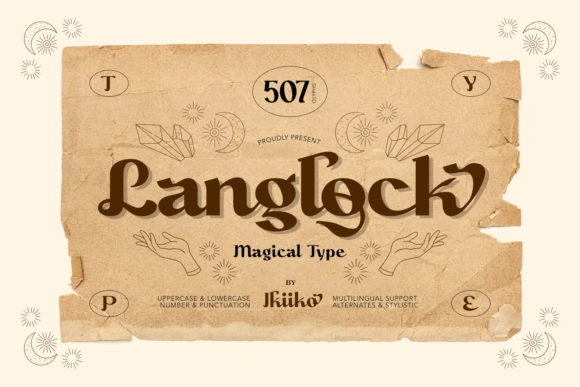
Journey into a realm of enchantment with Langlock Font, a serif typeface that captures the mystical allure of classic fairy tales. Inspired by the era of wizards and magic, this font is a captivating choice for those seeking a touch of vintage charm.
Immerse yourself in the pages of a timeless storybook as you explore the intricate details of Langlock Font. Its elegant curves and delicate flourishes evoke a sense of nostalgia, transporting you to a world of wonder and imagination. Unleash your creativity and craft designs that exude a classic elegance, reminiscent of beloved fairy tales.
With Langlock Font, you hold the key to unlocking a world of creative possibilities. Embark on a magical adventure as you design enchanting book layouts, weave spellbinding fairy tales, and create captivating marketing materials. This font is a versatile tool that adds a touch of magic to any project.
Lose yourself in the enchanting world of Langlock Font, where inspiration flows like a river. Whether you're crafting a vintage-inspired poster, designing a captivating flyer, or simply adding a touch of whimsy to your social media posts, this font is the perfect companion.
Take your designs to new heights with Langlock Font, the font that sparks imagination and ignites creativity. Its timeless appeal and enchanting aura will leave a lasting impression on your audience, captivating their hearts and minds. Discover the magic of Langlock Font today and embark on a creative journey like no other.